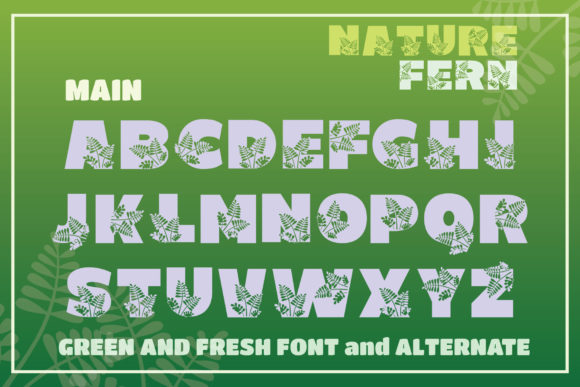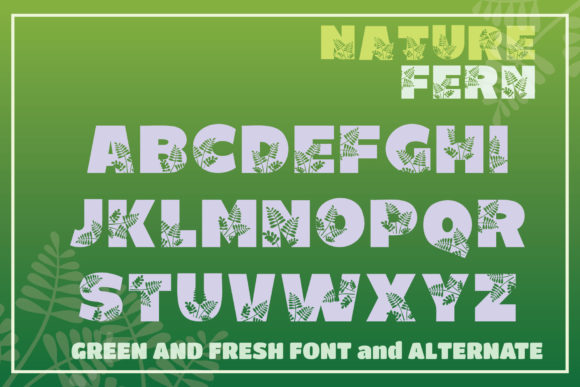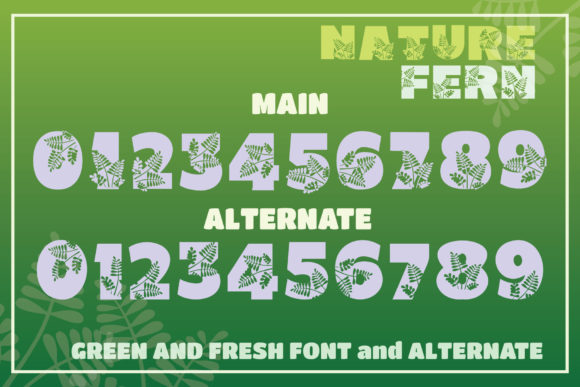
Introduction to Nature Fern Font Font
Fonts play a crucial role in design, and the Nature Fern Font font is a typeface that brings both character and versatility to any project. Whether you’re working on a branding project, a website, or a print design, the Nature Fern Font font offers a unique style that can elevate your work.
| 📌 Font Name | Nature Fern Font |
| 👤 Author | KtwoP |
Nature Fern is a unique nature inspired display font.
Key Features of Nature Fern Font Font
Why Choose Nature Fern Font Font?
The Nature Fern Font font is more than just a typeface – it’s a design tool that helps you communicate your message with style and clarity. Its unique character set and versatile design make it suitable for a wide range of applications, from elegant invitations to bold headlines.
With its carefully crafted letterforms and balanced proportions, the Nature Fern Font font ensures readability and visual appeal across all mediums.
What makes Nature Fern Font font special?
The Nature Fern Font font stands out with its unique design, exceptional readability, and versatility across various design applications.